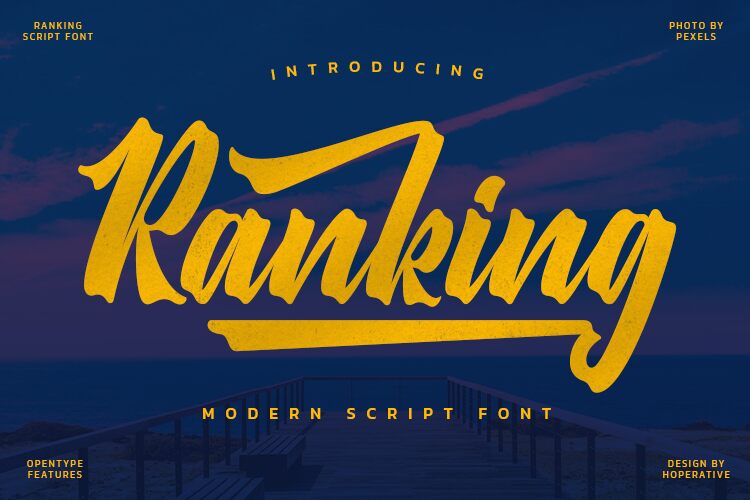
Ranking, the modern script font by Hoperative, is the perfect choice for projects that require a touch of elegance and sophistication. With its semi-bold weight and condensed width, it's ideal for creating eye-catching logos, website designs, and packaging. Its brush touch adds a unique flair to your projects, making it suitable for a variety of industries from fashion to luxury goods. The modern script style provides versatility that makes it perfect for anything from wedding invitations to social media graphics. Upgrade your designs with Ranking today!
Ranking